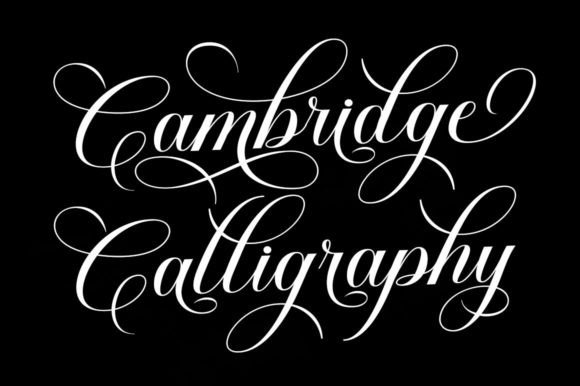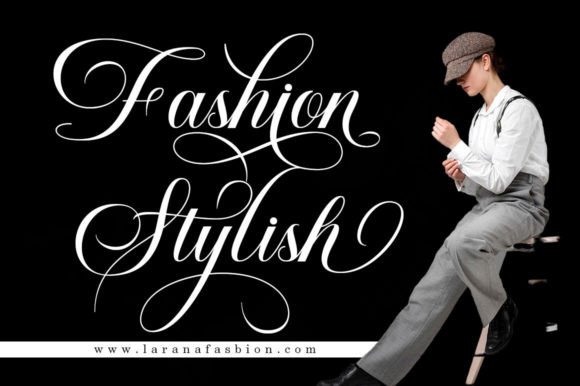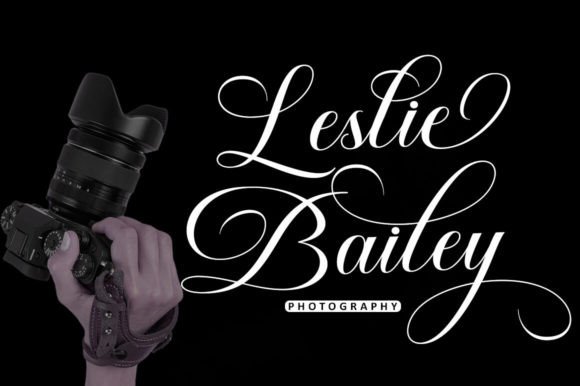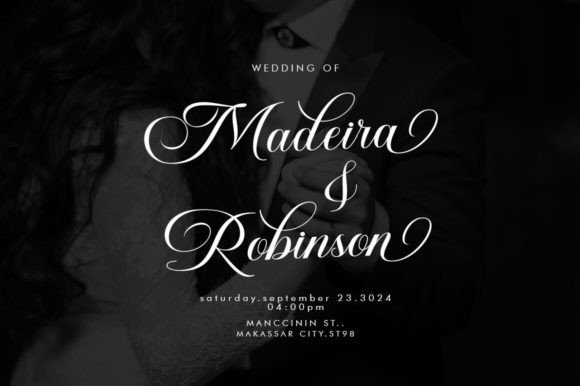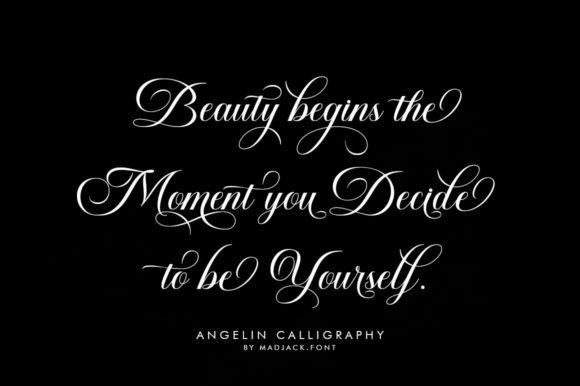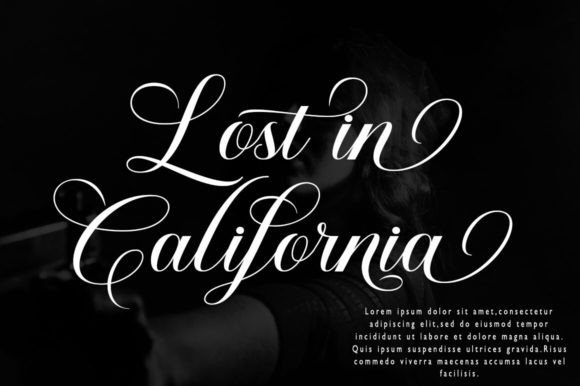
Discover the Elegance of Angelin Calligraphy Font
In the world of typography, few fonts manage to strike a balance between modernity and classic elegance. Angelin Calligraphy, a modern script font, is one such exceptional find. With its sleek, clean, and feminine appeal, this font has quickly become a favorite among designers and crafters. Its unique blend of glamour and simplicity makes it an ideal choice for a wide range of applications, from formal invitations to stylish packaging.
The Charm of Angelin Calligraphy
Angelin Calligraphy stands out for its luxurious letter connections, which not only add to its aesthetic appeal but also enhance readability. The font’s classic style, infused with a modern touch, makes it versatile and suitable for various design needs. Whether you’re working on a wedding invitation, a fashion brand’s logo, or a novel’s cover, Angelin Calligraphy brings a level of sophistication and elegance that is hard to match.
One of the key advantages of Angelin Calligraphy is its versatility. This font can be seamlessly integrated into numerous design projects, including:
- Invitations: Add a touch of elegance to your wedding, birthday, or event invitations.
- Labels and Packaging: Elevate your product’s branding with sophisticated labels and packaging.
- Restaurant Menus: Create a memorable dining experience with stylish menu designs.
- Logos and Branding: Give your brand a luxurious and memorable identity.
- Fashion and Makeup: Perfect for fashion brands, makeup artists, and beauty bloggers looking for a glamorous touch.
- Stationery and Notebooks: Add a classy feel to your stationery, journals, and notebooks.
- Novels, Magazines, and Books: Enhance the cover design of your publications with a sophisticated font.
- Greeting and Wedding Cards: Make your cards stand out with beautiful, hand-crafted elegance.
- Advertising: Use Angelin Calligraphy to create eye-catching advertisements that exude luxury and style.
Why Choose Angelin Calligraphy?
Choosing Angelin Calligraphy for your design projects comes with several benefits:
- Ease of Reading: Despite its elegant and luxurious feel, the font maintains high readability, making it suitable for both headings and body text.
- Feminine Touch: The font’s sleek and clean lines, combined with its sensual and glamorous appeal, add a feminine touch to any design.
- Customization: The luxurious letter connections allow for a high degree of customization, enabling designers to create unique and personalized designs.
Tips for Using Angelin Calligraphy
To make the most out of Angelin Calligraphy, consider the following tips:
- Mix and Match: Combine Angelin Calligraphy with other fonts to create contrast and add depth to your design.
- Play with Sizes: Use different font sizes to emphasize certain parts of your text and create a visual hierarchy.
- Adjust Letter Spacing: Tweak the letter spacing to ensure optimal readability and aesthetic appeal.
- Limit Your Palette: Stick to a limited color palette to maintain elegance and avoid visual overload.
Angelin Calligraphy Font is a versatile and elegant script font that brings a touch of luxury and sophistication to any design project. Its sleek lines, luxurious connections, and easy readability make it an excellent choice for designers and crafters looking to add a classic yet modern feel to their creations. Whether you’re designing invitations, branding materials, or publications, Angelin Calligraphy is sure to elevate your work to new heights of elegance and style.